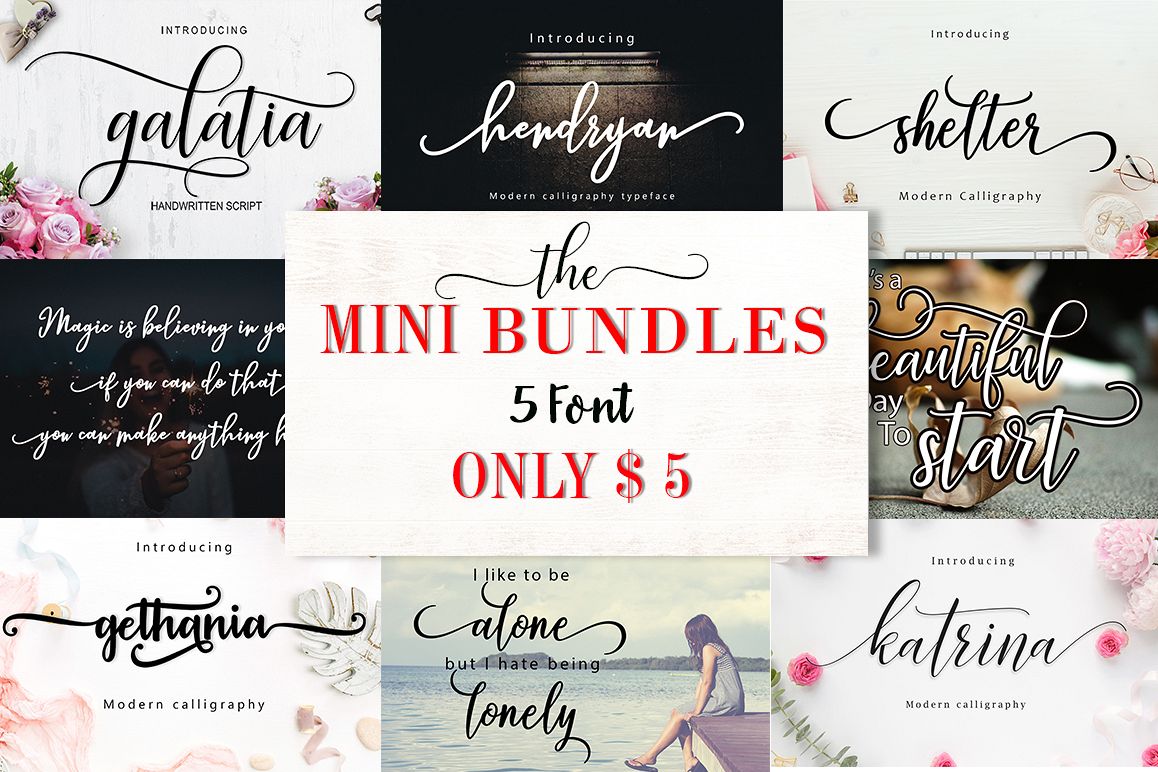
Hendryan-Regular
Gethania-Regular
GalatiaScript-Regular
KatrinaScript-Regular
Shelter
- Gorgeous, handmade modern script fonts.
- A beautiful choice for so many printed projects - invitations, greeting cards, posters, quotes, business cards, T-shirts, branding and more.
- OpenType Features galore - Stylistic Alternates, Contextual Alternates, Swashes and more.